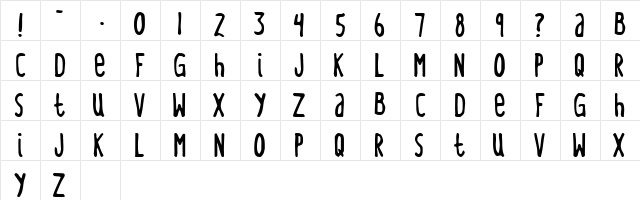
GenericFont Oral Expulsive
Design Context for GenericFont Typeface
GenericFont is a composed and adaptable typeface that performs quietly and consistently across a wide range of design contexts.